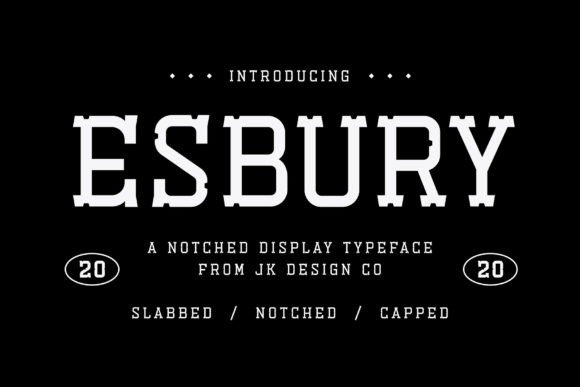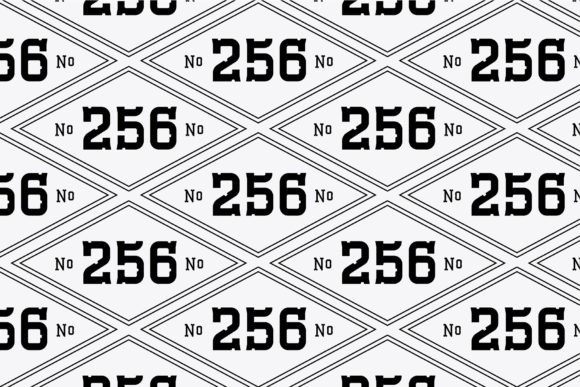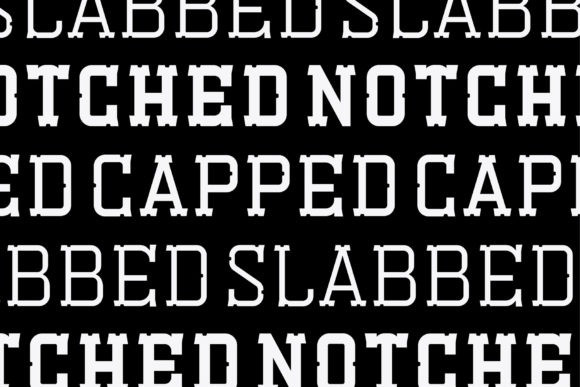
Esbury Font
Esbury is a modern, cool display font inspired by gritty vintage tattoo typography and elegant European hotel signage. It’s a meshing of two seemingly different approaches to create an entirely new style.